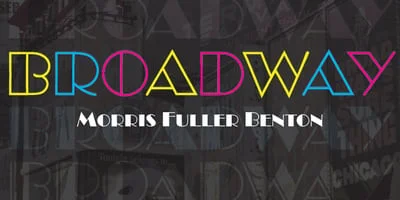
Broadway Poster Font
Broadway Poster Font excels in theatrical productions, entertainment event posters, cabaret show materials, musical theater branding, vintage concert graphics, circus announcements, vaudeville-inspired designs, showbiz marketing campaigns, performing arts promotions, and dramatic advertising displays. Its theatrical character makes it perfect for projects requiring stage presence, dramatic flair, and entertainment industry authenticity.
What makes Broadway Poster Font exciting is its authentic recreation of classic Broadway theater typography that captures the glamour and excitement of live entertainment. The font features bold, theatrical letterforms with distinctive styling that evokes the golden age of American theater while maintaining modern functionality. Its show-stopping character transforms ordinary text into marquee-worthy displays that command attention and create anticipation for unforgettable performances.
The Broadway Poster Font family includes Regular, Bold, Condensed, Extended, Shadow, Outline, and Marquee variations. Each style maintains the font's theatrical essence while offering different dramatic effects and weights for creating spectacular entertainment graphics. The comprehensive character set includes theatrical symbols, entertainment ornaments, show business glyphs, and marquee-style elements essential for authentic Broadway-inspired typography projects.
Entertainment professionals and theater designers consistently choose Broadway Poster Font for projects demanding authentic show business typography solutions. The font's theatrical character instantly establishes entertainment atmospheres while ensuring maximum visual impact across promotional materials. Its versatility spans from intimate cabaret posters to grand theater marquees, making it perfect for all levels of entertainment marketing.
Whether you're promoting theatrical productions, creating entertainment brand identities, or designing show business marketing materials, Broadway Poster Font provides the perfect combination of dramatic impact and professional polish. The font's carefully crafted letterforms ensure authentic theater character while delivering excellent performance across various entertainment formats and promotional applications.
The show business heritage of Broadway Poster Font makes it exceptional for creating memorable entertainment experiences that capture audience imagination. Its theatrical precision and dramatic appeal work seamlessly across traditional theater posters and modern digital entertainment platforms. The font performs magnificently in both large marquee displays and intimate program materials.
Take center stage with Broadway Poster Font and discover how authentic theatrical typography can elevate your entertainment projects to star quality. This remarkable typeface combines Broadway tradition with contemporary functionality, making it indispensable for anyone creating show-stopping communications that celebrate the magic and excitement of live entertainment.